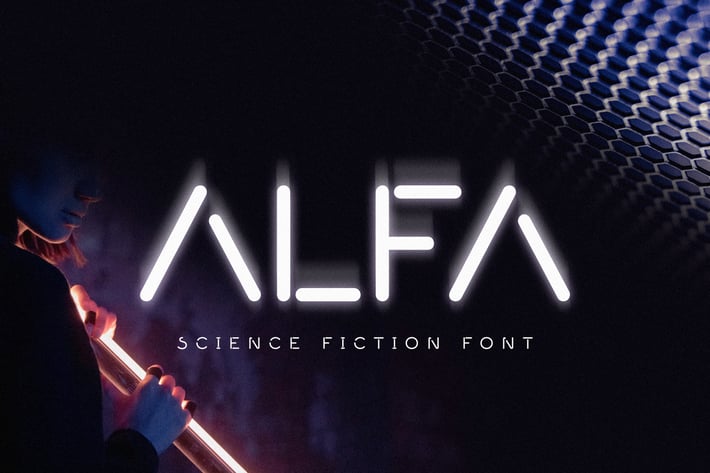
Alfa - Minimal Science Font
Introducing Alfa - a futuristic minimal science fiction font.
Perfect for technology, sci-fi, science and all kinds of futuristic projects. Create science fiction posters & flyers, website headers, high-tech logos and so much more!